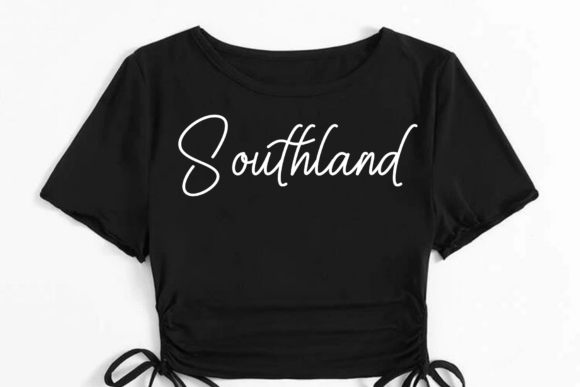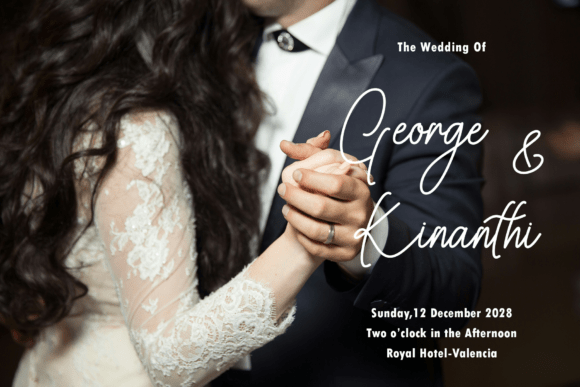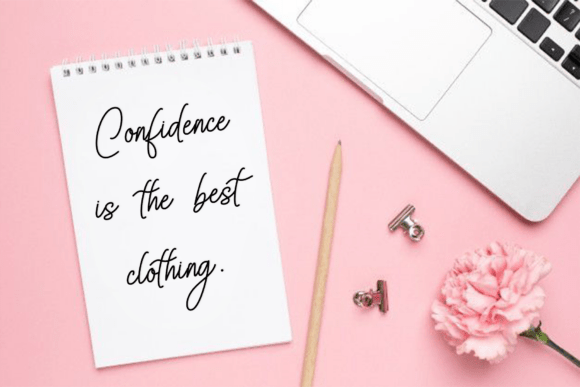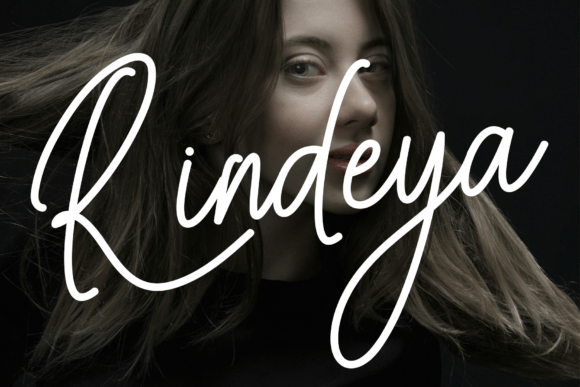
Introduction to Rindeya Font
Rindeya is a stylish and incredibly elegant script font.
Key Features of Rindeya Font
Why Choose Rindeya Font?
Rindeya Font offers exceptional quality and versatility, making it a valuable addition to your design toolkit. Whether you’re creating for personal projects or commercial use, Rindeya Font delivers professional results.